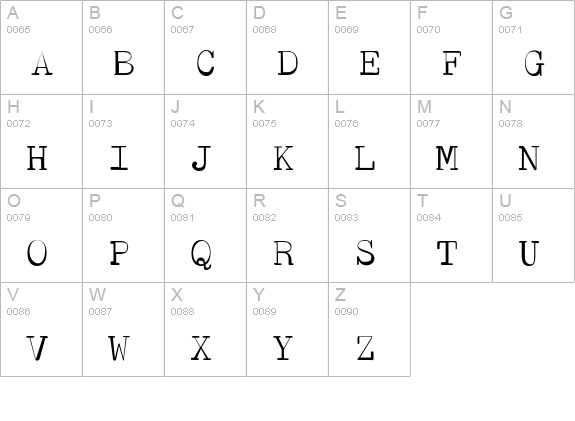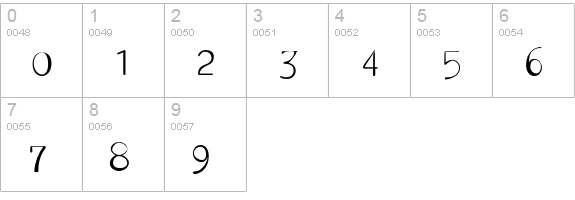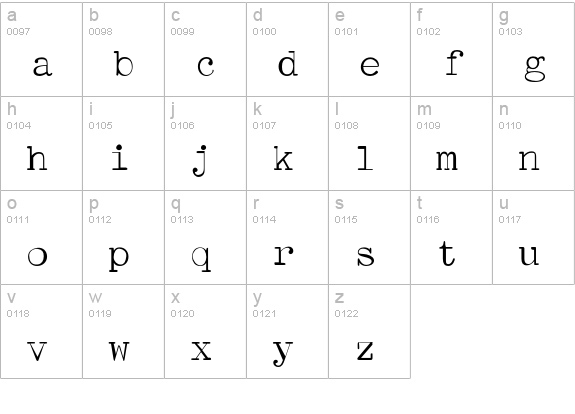
STAPortableLight Font Details
STAPortableLight is a stunningly elegant font that combines modern simplicity with a touch of sophistication. This font is perfect for creating sleek and stylish designs that demand attention. With its clean lines and delicate curves, STAPortableLight effortlessly adds a touch of class to any project. What sets STAPortableLight apart is not only its impeccable design but also the fact that it is free for download. Yes, you read that right! STAPortableLight is freely available to download at FontsMarket.com, making it accessible to anyone looking to elevate their design game without breaking the bank. Whether you're working on a branding project, a fashion magazine layout, or a website design, STAPortableLight is the ideal choice. Its versatility allows it to seamlessly blend into any design concept, enhancing the overall aesthetic and creating a visually captivating experience. The legibility of STAPortableLight is exceptional, making it a top choice for both print and digital media. The carefully crafted letterforms ensure that each character is distinct and easy to read, even at smaller sizes. This makes it perfect for body text, headlines, and everything in between. STAPortableLight is a font that effortlessly combines functionality and style. Its smooth curves and precise geometric shapes create a harmonious balance that is visually pleasing to the eye. This font is a testament to the art of typography and the power it holds in enhancing the overall visual impact of any design. So why wait? Download STAPortableLight for free at FontsMarket.com and let this font elevate your designs to new heights. Experience the seamless blend of elegance and simplicity that STAPortableLight has to offer and unlock endless possibilities for your creative projects.